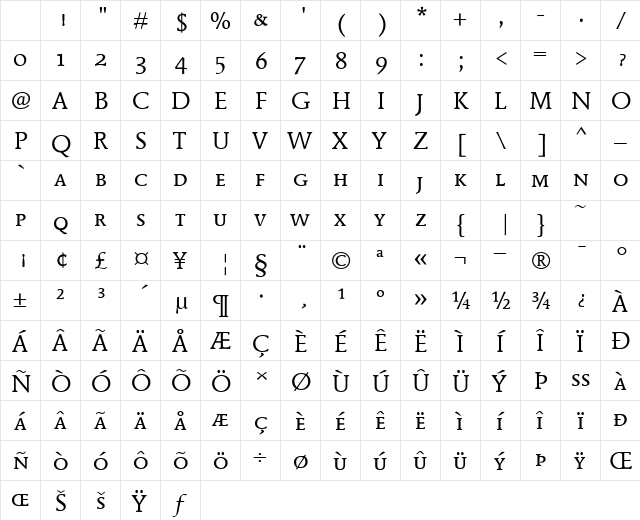
Complete MendozaRomanITCSC-Book Book glyph index. Displaying only characters natively supported by MendozaRomanITCSC-Book Book font.
MendozaRomanITCSC-Book is a composed and adaptable typeface that performs quietly and consistently across a wide range of design contexts.